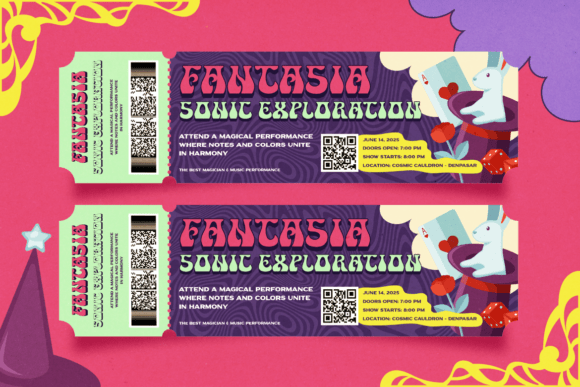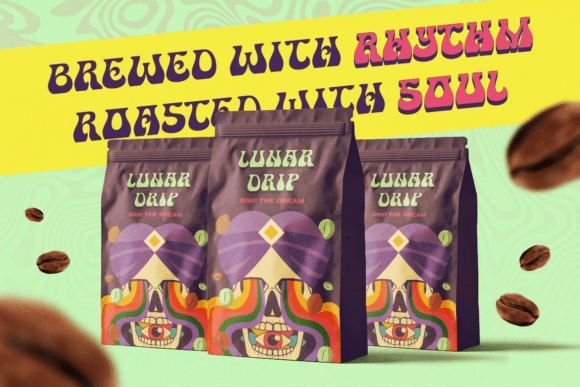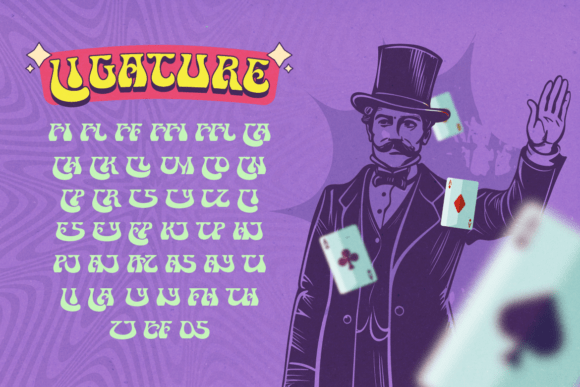
Introduction to Balads Font
Step into a colorful, dreamy world with Balads.
This psychedelic typeface is heavily inspired by 70s poster artโwhere freedom, love, and music ruled With chunky, melting letterforms and magical energy in every curve, Balads brings back the trippy vibes of vintage festival posters, groovy album covers, and classic rock aesthetics.
Key Features of Balads Font